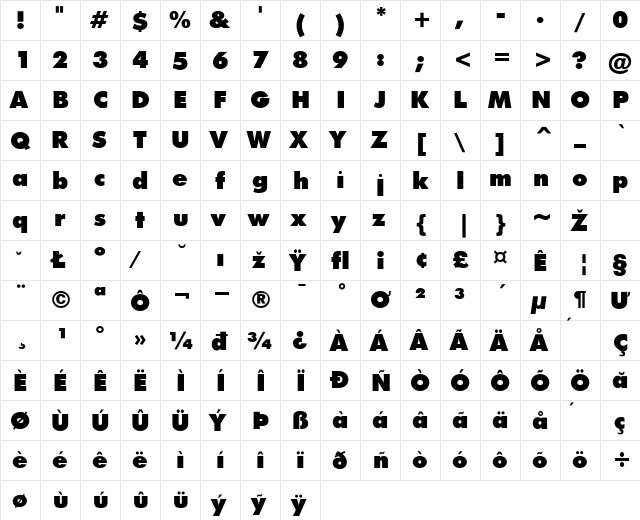
Futura-Black Bold Font Preview
Futura-Black Bold
Design Context for Futura-Black Typeface
Futura-Black channels digital-age aesthetics through its sharp, structured letterforms — ideal for brands that want to signal innovation. The heavy weight commands attention and anchors typographic hierarchies.
Pro Tip: Try Futura-Black with generous letter-spacing in UI labels and navigation — the geometric forms benefit from room to breathe.